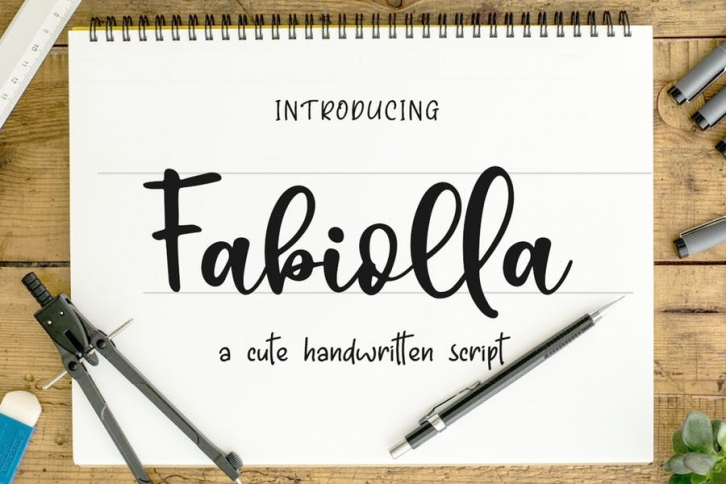
Introducing a cute handwriting "Fabiolla" Script Font!
If you are needing a touch of casual modern calligraphy for your designs, this font was created for you!